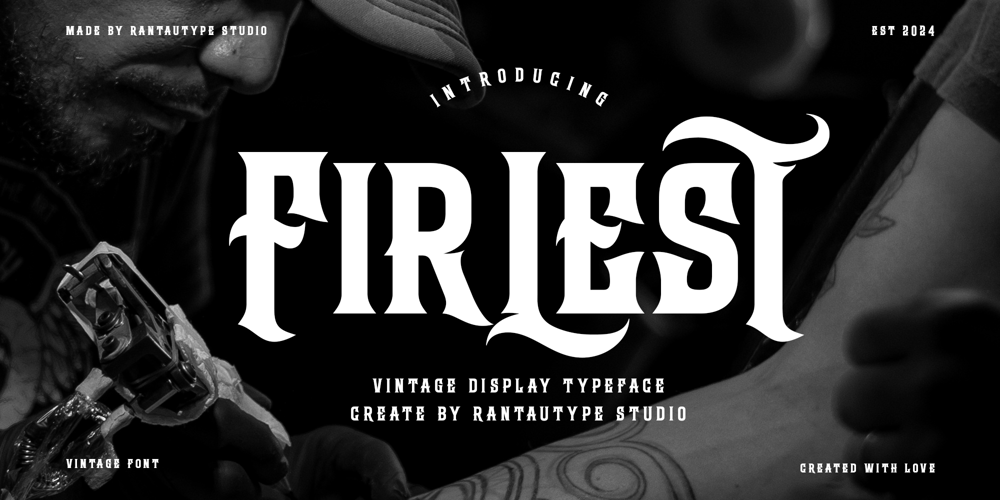
Firelast Font Family was designed by Yudi Pratama Chandra and published by RantauType. Firelast contains 2 styles and family package options. Firlest is old vintage font inspire by culture of tatto and biker visual design. Firlest come with strong curve and artistic character make sense of elegance.Firlest is a perfectly choice for any creative endeavor, chic, lifestyle design such as logos, advertisements, stationery, branding project, display and magazine, invitation, corporate brand, product design, label, business project and many other project with old vintage touch.What you have: Standart Glyphs Numberial and Functional Alternate and Ligature Works on PC & Mac Simple installations Accessible in Adobe Illustrator, Adobe Photoshop, Adobe InDesign, even work on Microsoft Word. Fonts include Multilingual Character for: Afrikaans, Albanian, Asu, Basque, Bemba, Bena, Breton, Chiga, Cornish, Dutch, English, Estonian, Filipino, Finnish, Friulian, Galician, Gusii, Indonesian, Irish, Italian, Kabuverdianu, Kalenjin, Kinyarwanda, Luo, Luxembourgish, Luyia, Machame, Makhuwa-Meetto, Makonde, Malagasy, Manx, Morisyen, North, Ndebele, Nyankole, Oromo, Portuguese, Quechua, Romansh, Rombo, Rundi, Rwa, Samburu, Sango, Sangu, Scottish, Gaelic, Sena, Shambala, Shona, Soga, Somali, Spanish, Swahili, Swedish, Swiss, German.Thank you for your purchase!Hope you enjoy with our font!